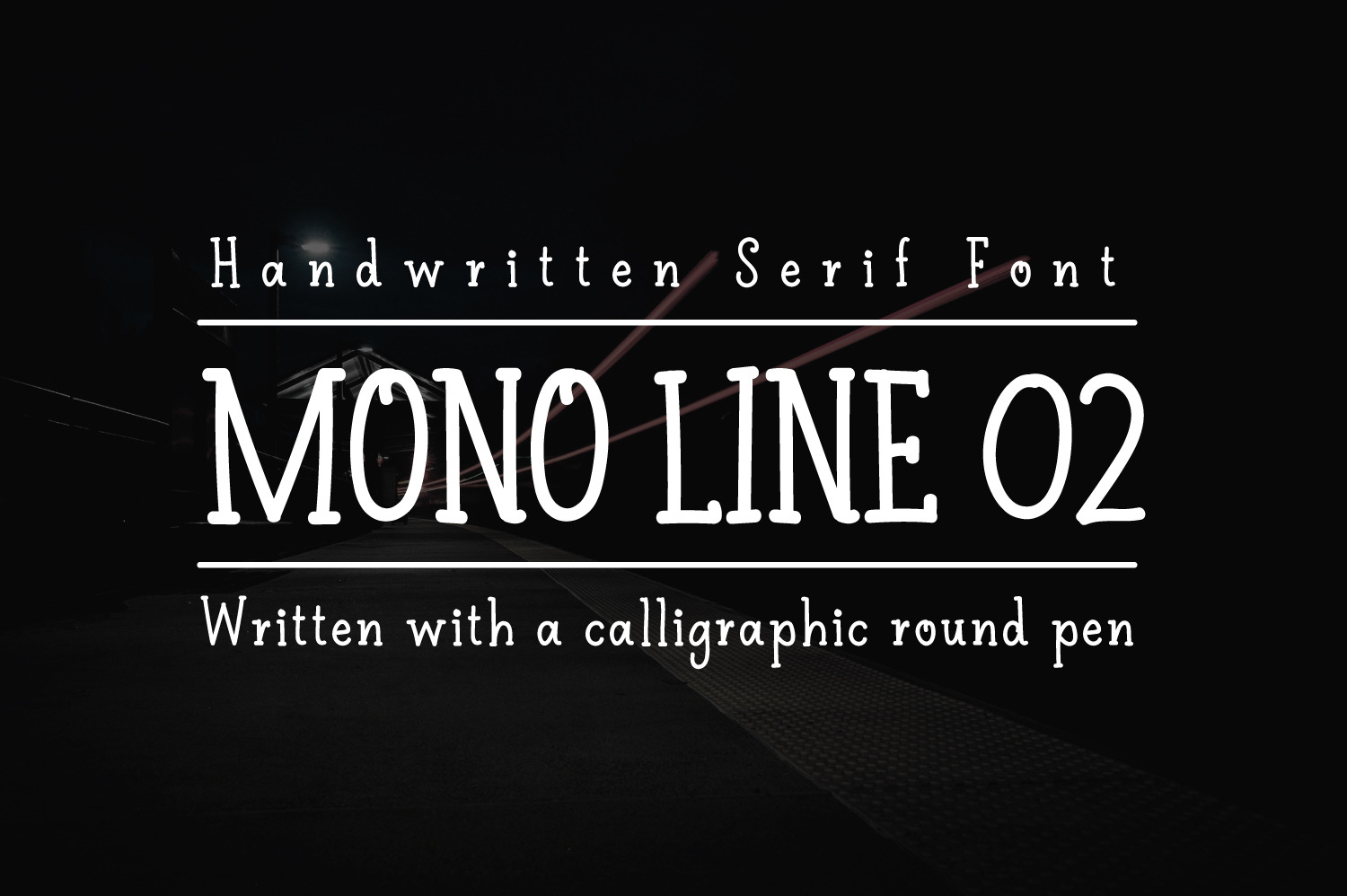
Hi guys! I created a new font. This is written with a brush
Mono Line 02
Font can be used for design works, for example for posters, badges, logos, corporate identity design, for books, postcards, as well as for many other products